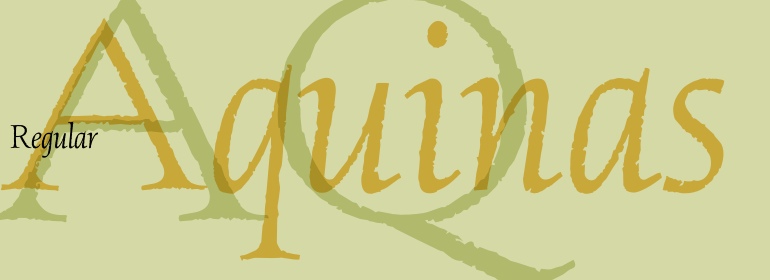
Aquinas Font
Aquinas Font is perfect for theological seminary branding, religious publishing houses, philosophical journal layouts, medieval studies materials, monastery gift shops, ecclesiastical documentation, spiritual retreat centers, and scholarly religious institution identities. This contemplative typeface excels in applications where sacred wisdom and intellectual tradition are essential for creating reverent and authoritative brand experiences that honor theological scholarship.
What makes Aquinas Font truly exciting is its profound embodiment of scholastic wisdom and medieval intellectual tradition that captures the essence of Thomas Aquinas's theological genius and the golden age of medieval scholarship. The font features scholarly letterforms with classical proportions and theological character details that mirror the precision of systematic theology and the reverent beauty of illuminated manuscripts. Its contemplative personality and scholarly character create an immediate sense of spiritual depth and intellectual rigor that resonates with audiences seeking authentic religious education and theological excellence. The typeface's scholastic heritage and sacred appeal make it perfect for brands wanting to convey wisdom, tradition, and connection to the centuries-old tradition of Christian scholarship and philosophical inquiry.
The Aquinas Font family includes regular and ornamental versions, complemented by medieval alternates and sacred-inspired decorative elements. The font offers comprehensive character sets with theological symbols, scholarly ligatures, and ecclesiastical styling details that enhance its sacred aesthetic. Additional graphic elements including crosses, manuscript flourishes, theological motifs, and medieval ornaments provide designers with complete branding tools rooted in Christian intellectual tradition and scholastic heritage.